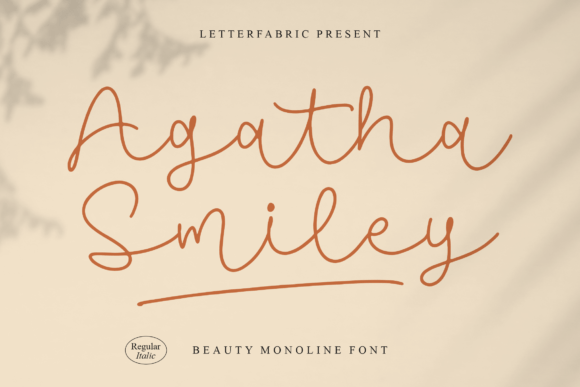
In a world saturated with monotonous and unoriginal fonts, Agatha Smiley emerges as a captivating and enchanting script font, ready to transform your creative visions into remarkable realities. Crafted by the skilled hands of Letterfabric, Agatha Smiley possesses an undeniable charm that captivates and inspires.
Unleash the Beauty of Handwritten Elegance:
With its graceful strokes and elegant curves, Agatha Smiley exudes the allure of handwritten calligraphy. Each character dances across the page, evoking a sense of intimacy and artistry. Experience the joy of creating designs that resonate with authenticity and heartfelt expression.
Perfect for Medium Posters and Beyond:
Agatha Smiley is not just a font; it's a versatile tool that adapts seamlessly to various design projects. Whether you're creating medium posters, logos, branding materials, homeware designs, product packaging, mugs, quotes, or shopping bags, Agatha Smiley effortlessly elevates your designs.
Add a Touch of Whimsy to Your Creations:
Agatha Smiley's playful and cheerful personality adds a touch of whimsy and delight to your projects. Its charming curves and playful flourishes infuse your designs with a sense of joy and lightheartedness, making them irresistible to customers and clients alike.
Elevate Your Designs with Timeless Elegance:
Agatha Smiley transcends fleeting trends, embodying timeless elegance that resonates with audiences of all ages. Its classic appeal ensures that your designs remain relevant and captivating for years to come. Embrace the enduring beauty of Agatha Smiley and create designs that stand the test of time.